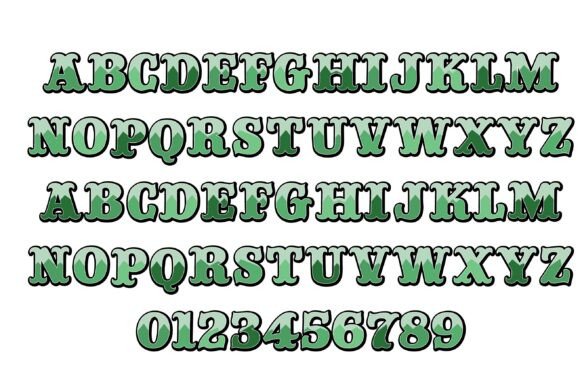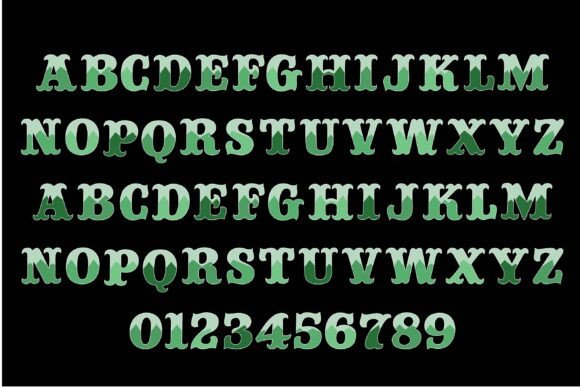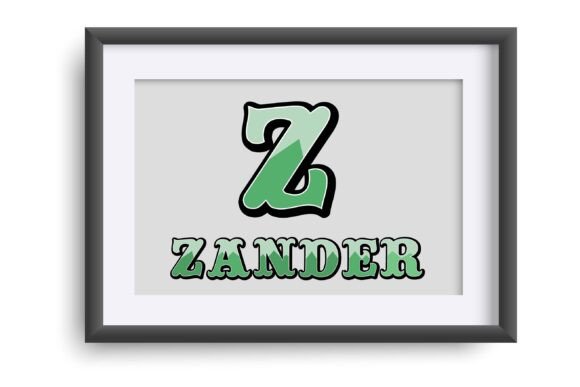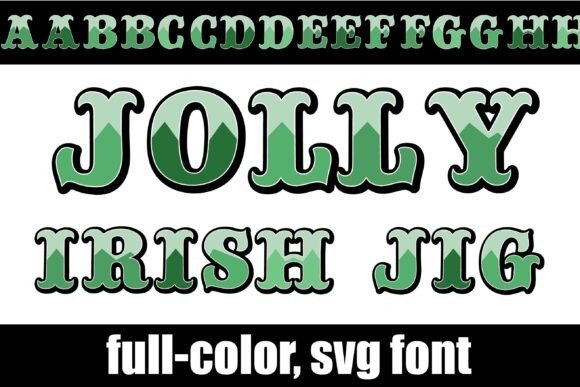
Introduction to Jolly Irish Jig Font
This full-color font features a circus-style font in a green color palette.
There is an alt version you can access through your system’s character map that contains additional colors of all the letters This font works best for titles, displays, posters and more.
Key Features of Jolly Irish Jig Font
Why Choose Jolly Irish Jig Font?
Jolly Irish Jig Font offers exceptional quality and versatility, making it a valuable addition to your design toolkit. Whether you’re creating for personal projects or commercial use, Jolly Irish Jig Font delivers professional results.